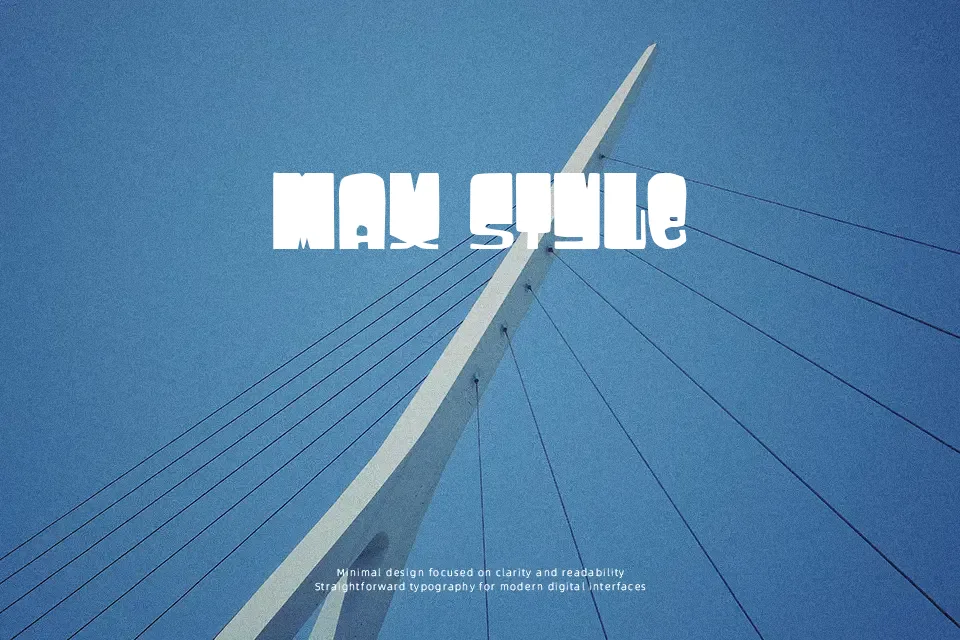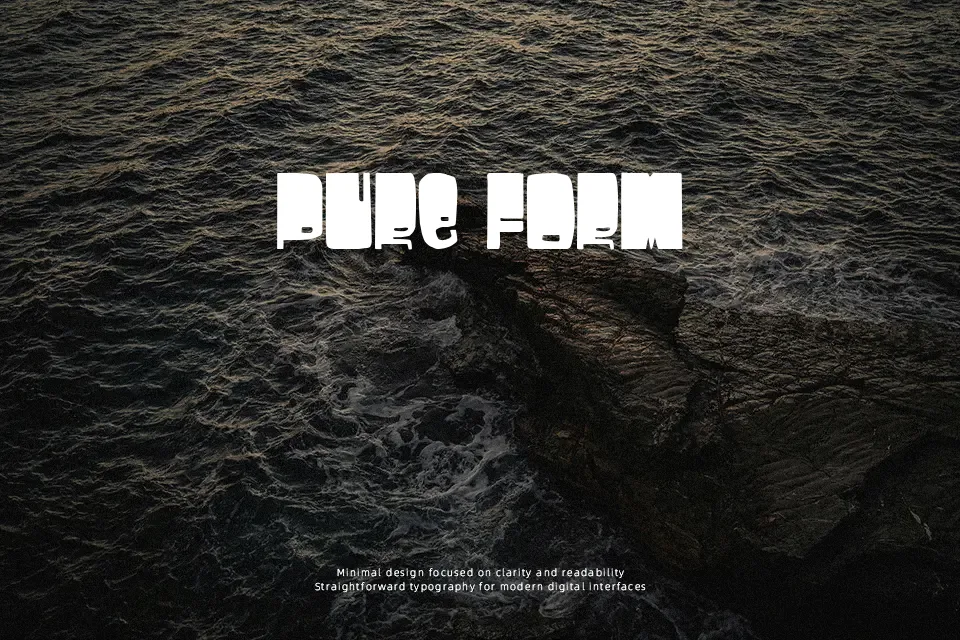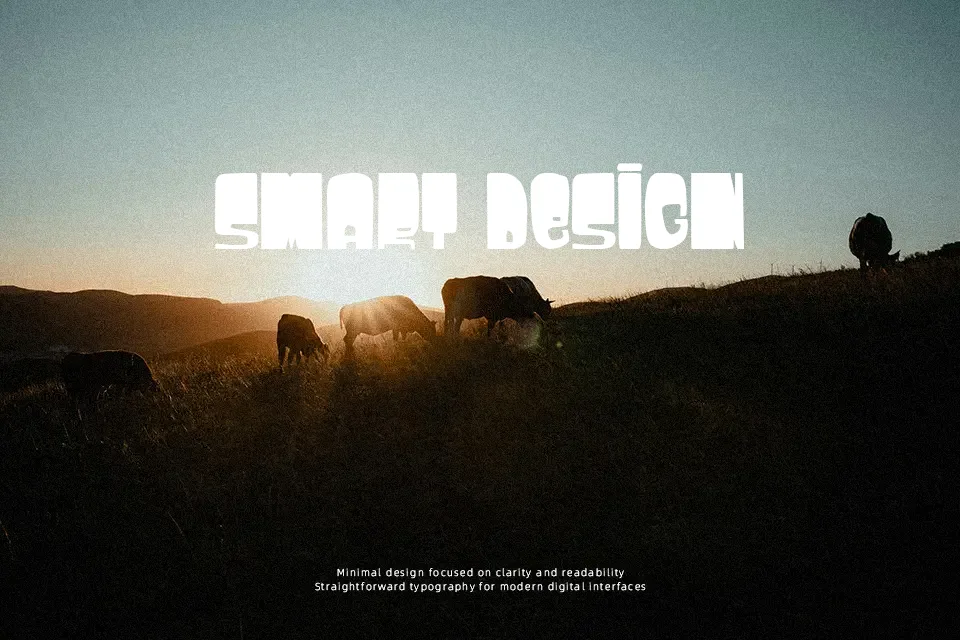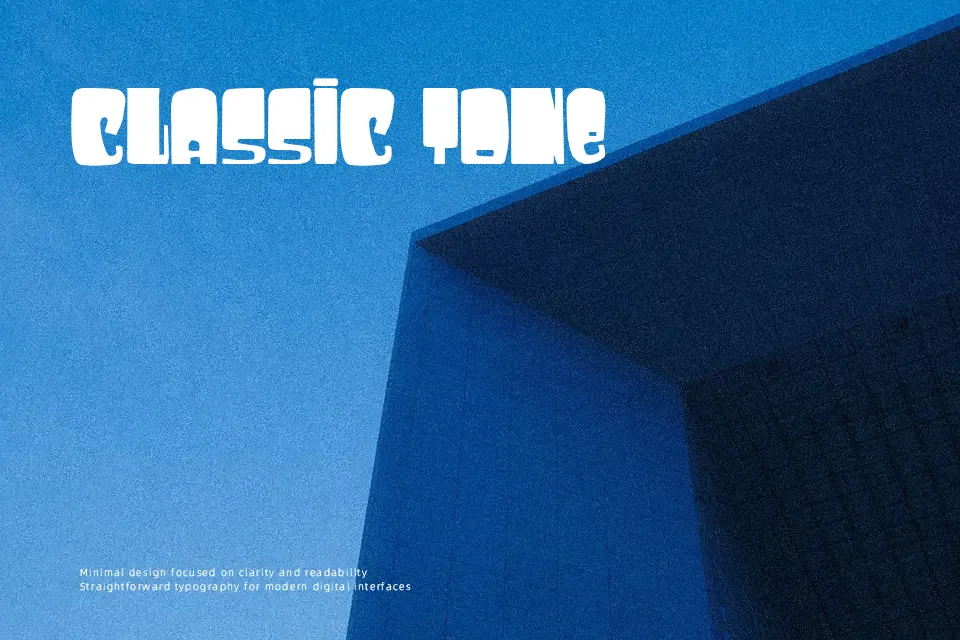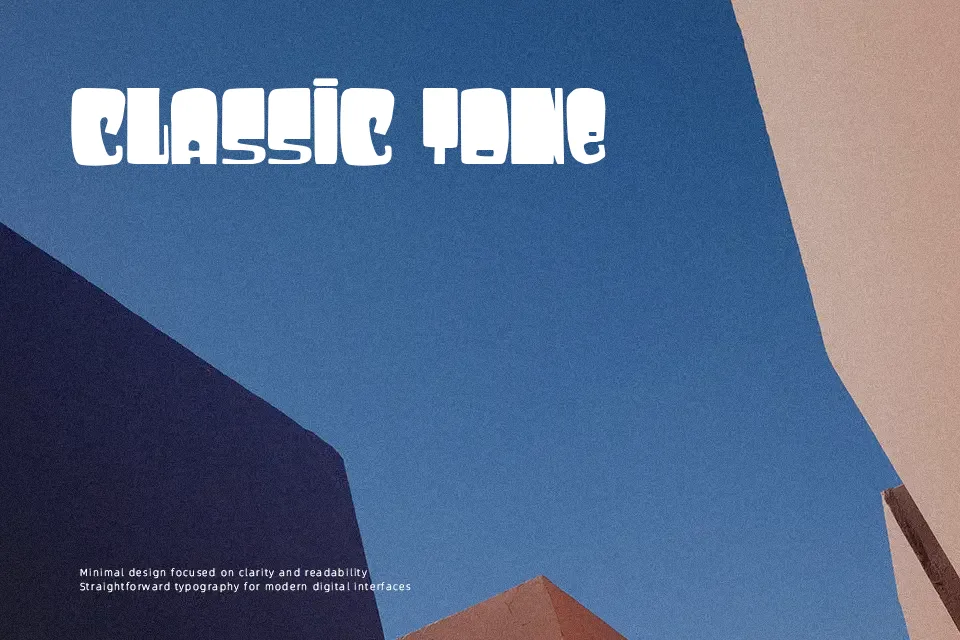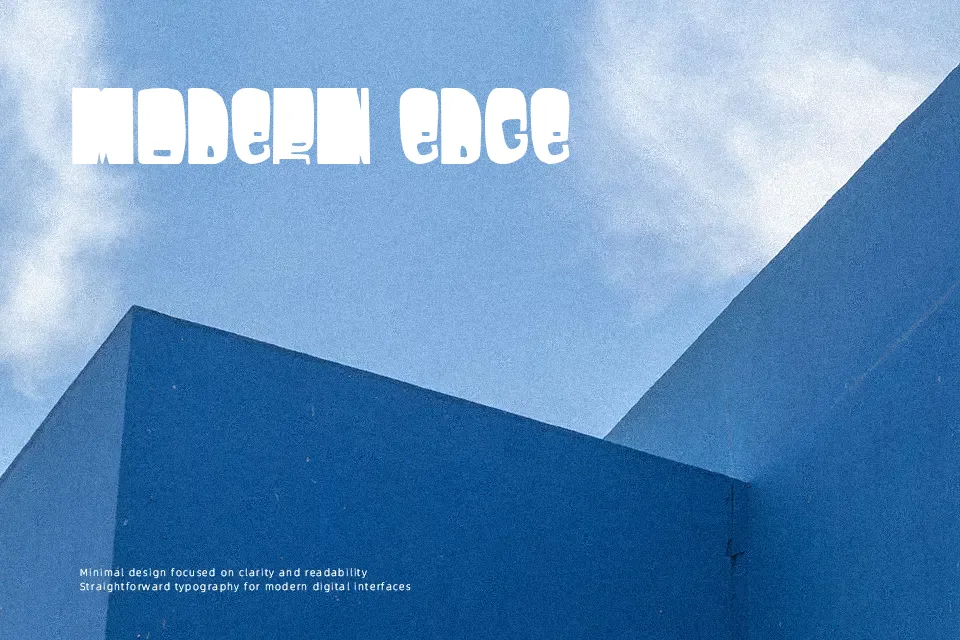
Pacheco’s Boulevard Font
Pacheco’s Boulevard Font works best as a loud display face built from heavy, uneven forms and irregular contours. The letterforms have a blocky structure with rough edges, varied internal spacing, and deliberately distorted proportions that create a restless visual rhythm. Uppercase and lowercase characters retain a consistently handmade appearance, while the numerals follow the same dense, expressive construction. It reads most clearly in short words set large, especially for posters, cover art, and apparel graphics. The bold strokes give headlines immediate presence, but the crowded shapes and unconventional details make the typeface tiring in small text or long passages.
Best For: music event posters,streetwear graphics,album cover titles,skate-inspired logos
Not Ideal For: long paragraph text,small interface labels,formal business documents,dense editorial layouts
Perfect for advertising, fashion, and logo, with a bold and decorative style.